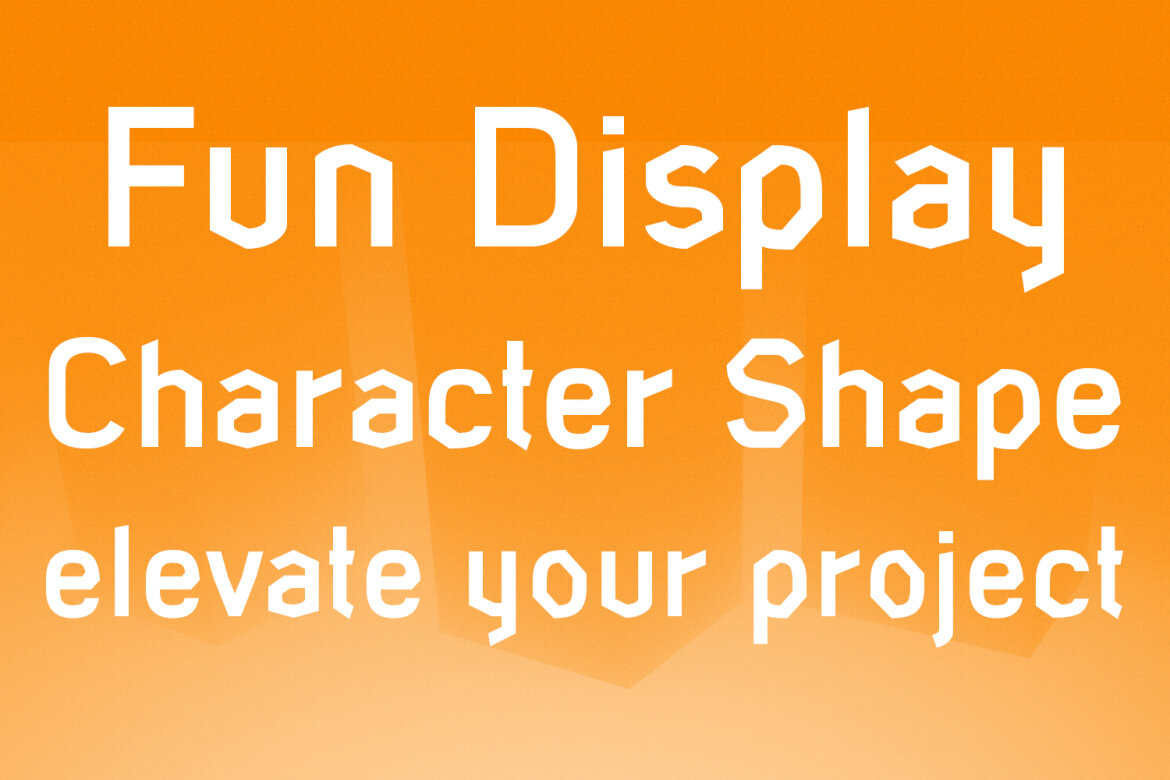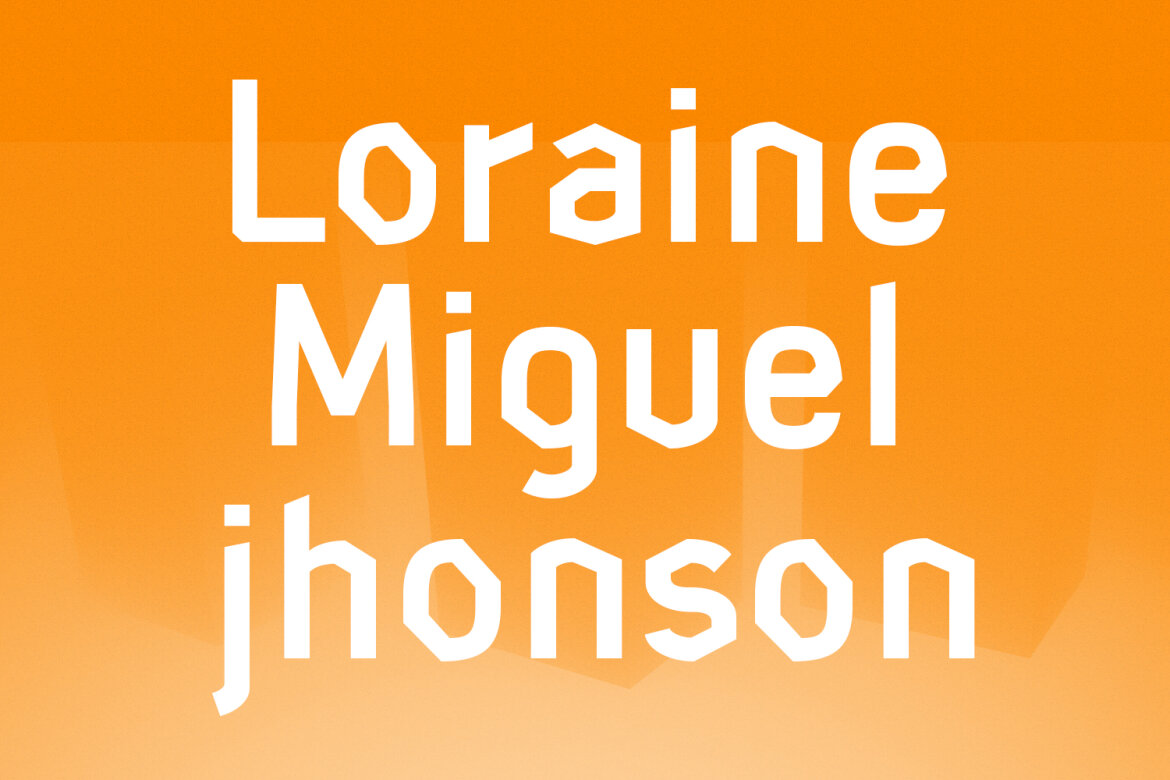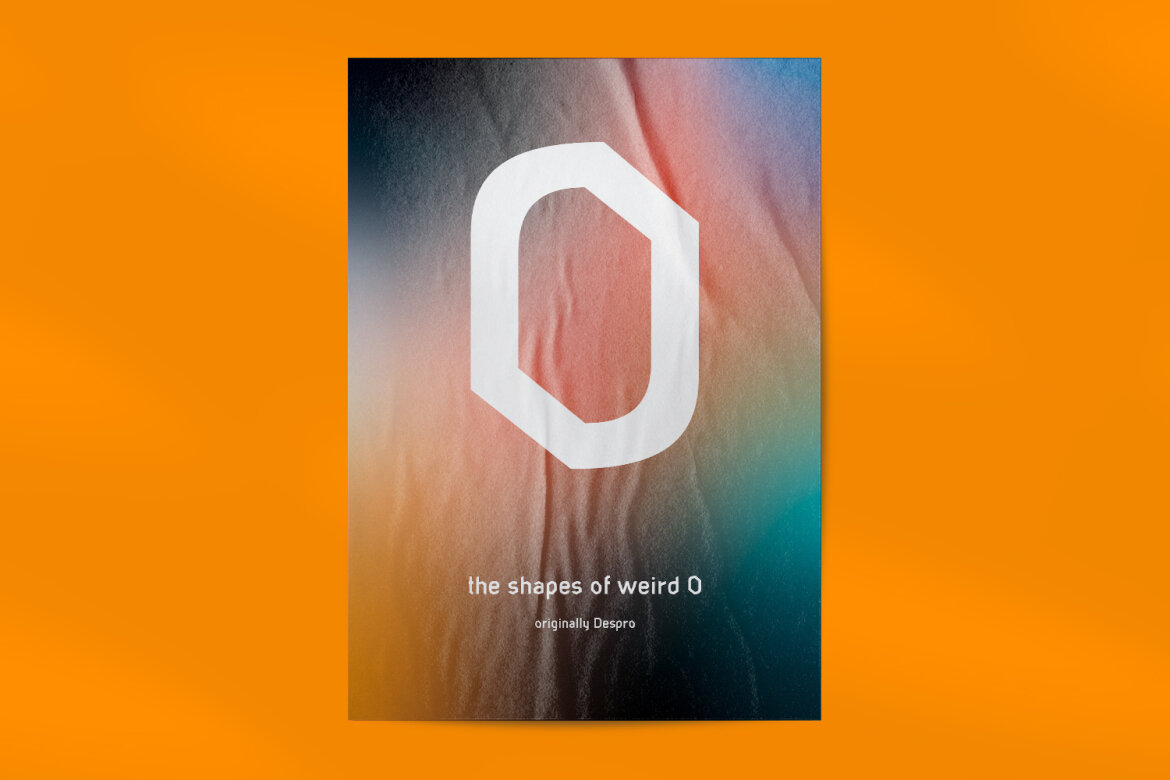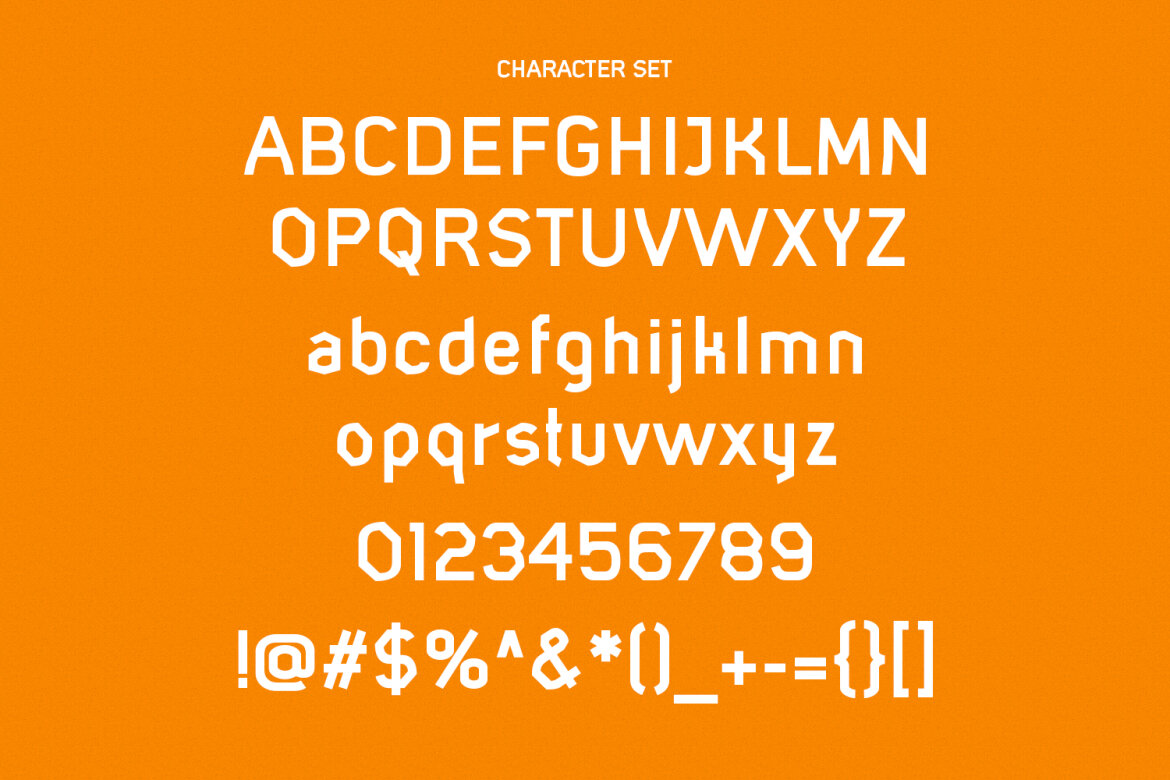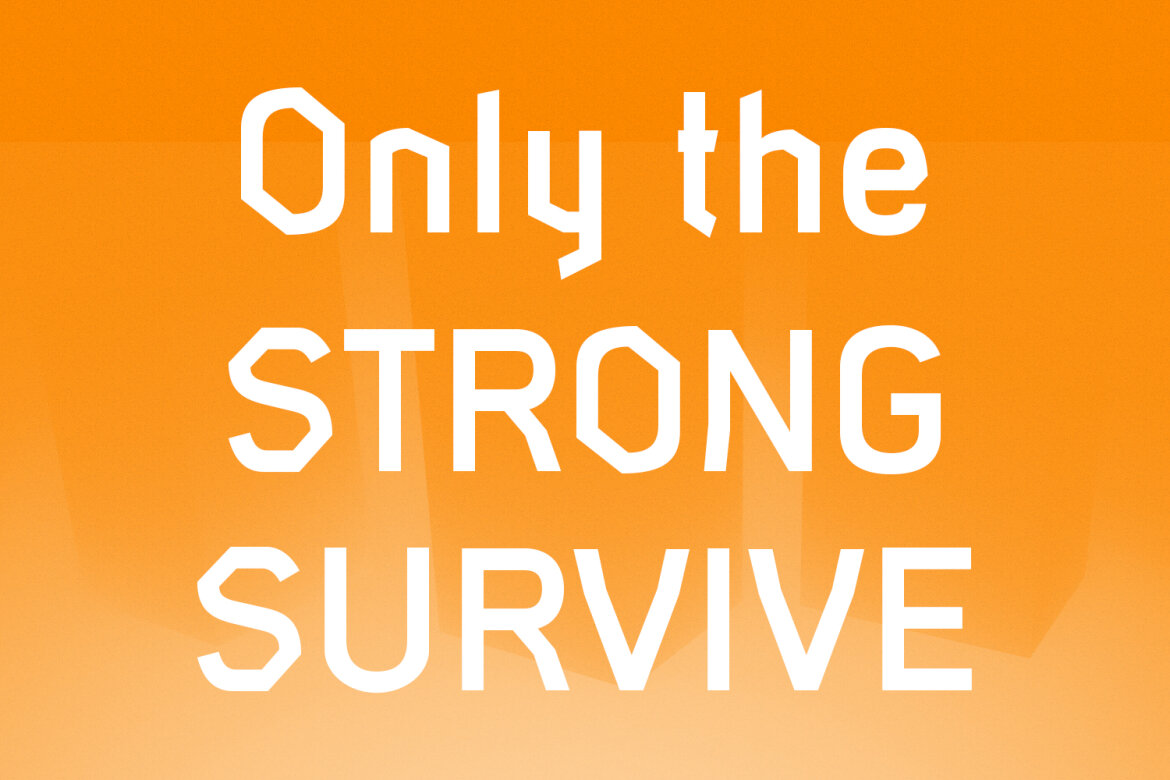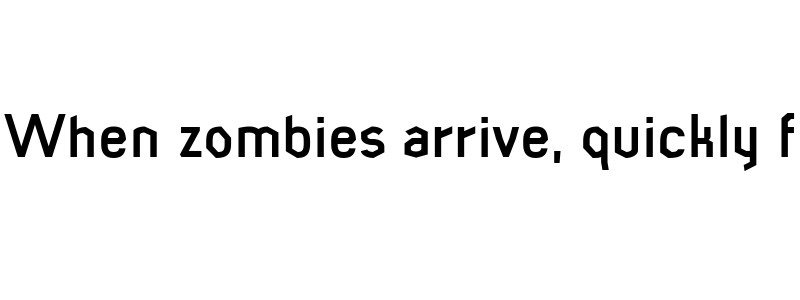
Despro Decorative Sans FREE Font
Despro is a Decorative Display Sans font. Medium stroke, fun character with a bit of ligatures and alternates. To give you an extra creative work. Despro font support multilingual more than 100+ language. This font is good for logo design, Social media, Movie Titles, Books Titles, a short text even a long text letter and good for your secondary text font with script or serif. Make a stunning work with Despro font.